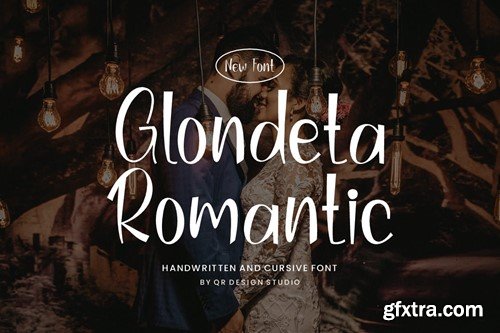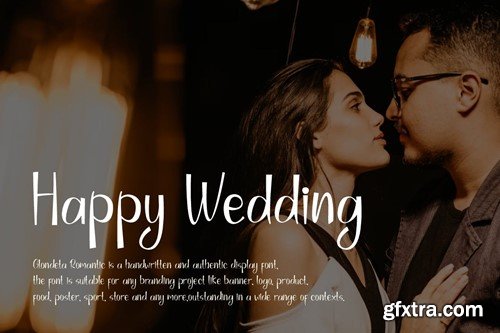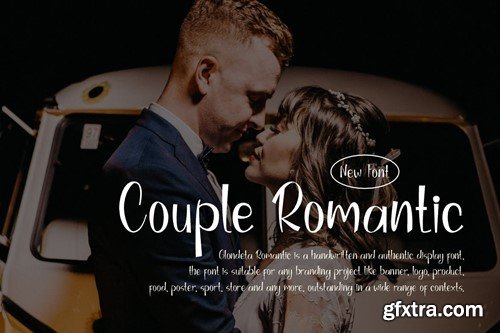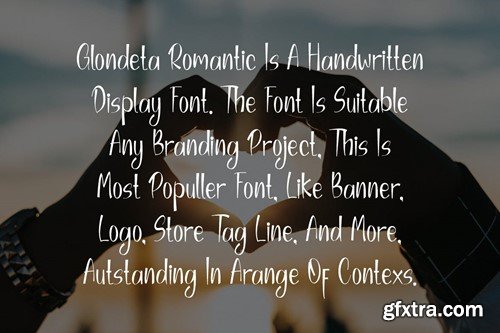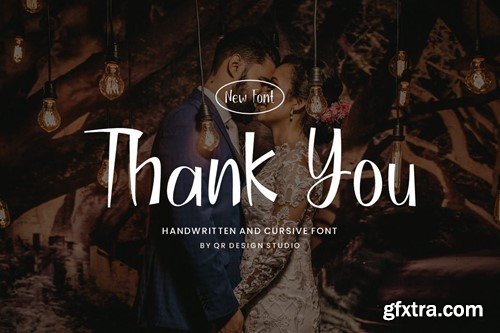
Glondeta Romantic - Wedding & Cursive Font
Glondeta Romantic Font is a Cursive and authentic display font. The font is suitable for any branding project like wedding, poster, logo, greeting card, and many more. Outstanding in a wide range of contexts. Included